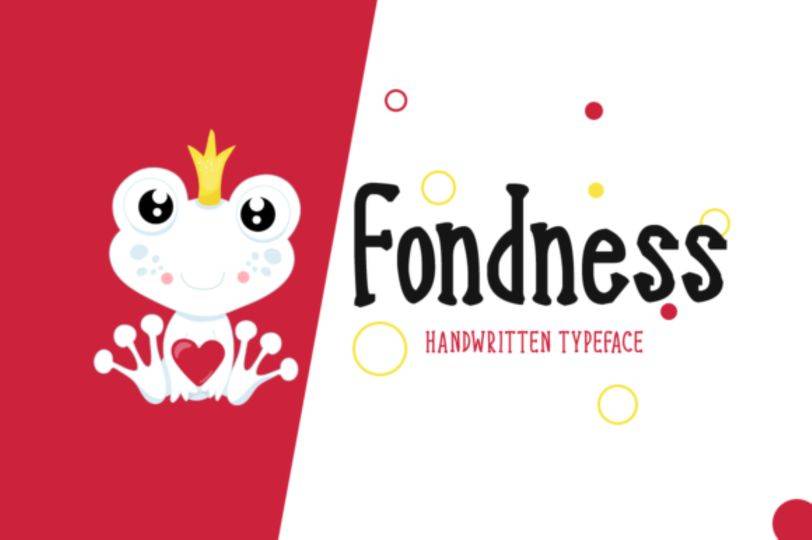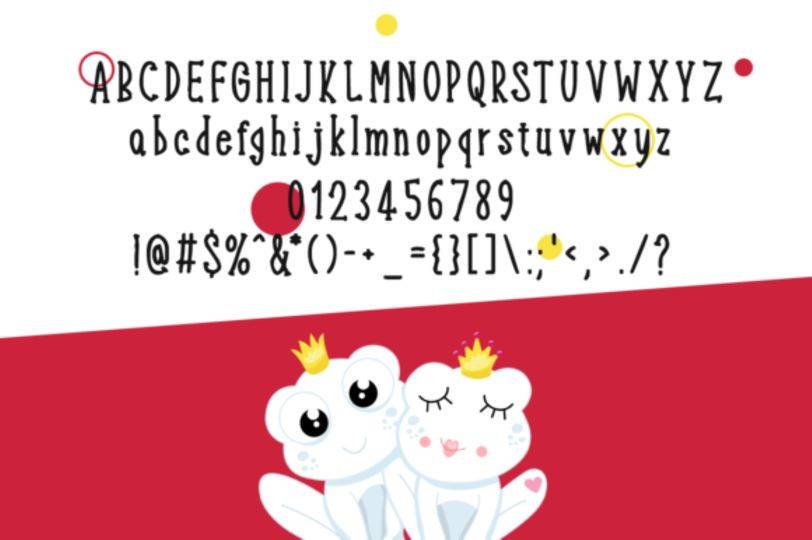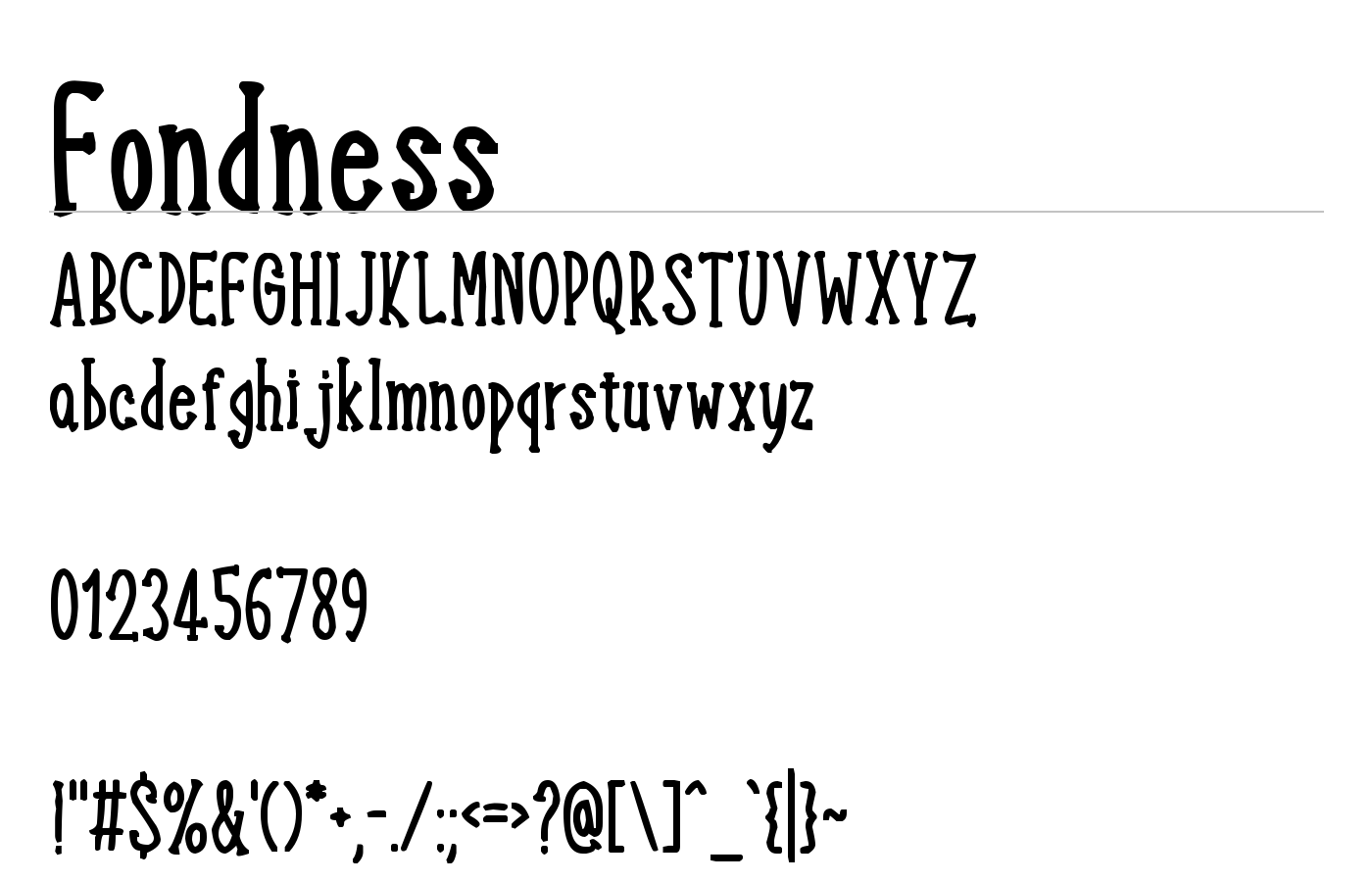
Fondness is a quirky serif font with a narrow, tall stature and moderate stroke contrast that gives it a playful yet vintage vibe. Its unique irregular serifs and uneven letterforms add character, making it ideal for eye-catching headlines, whimsical branding, and creative projects that want to feel friendly and distinctive. This font works well for designs seeking a cheerful, handcrafted touch without losing readability.
Fondness Font
About Fondness Font